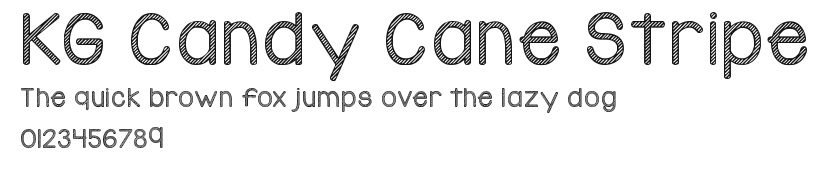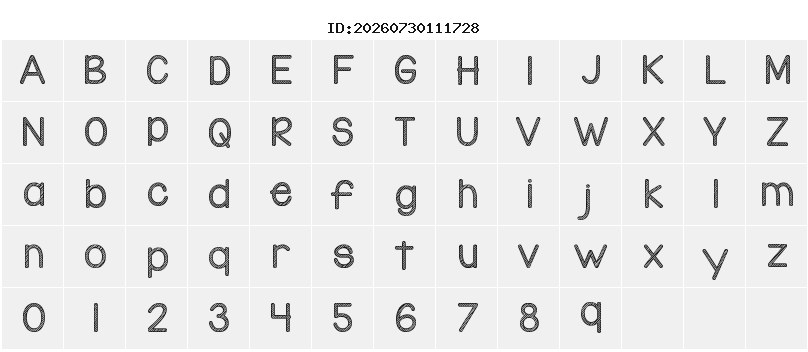
KG Candy Cane Stripe Preview
• Font Name: KG Candy Cane Stripe
• Font ID: KimberlyGeswein: KG Candy Cane Stripe: 2014
• Full Font Name: KG Candy Cane Stripe
• Designer: Kimberly Geswein
• Manufacturer: Kimberly Geswein
About KG Candy Cane Stripe.ttf
KG Candy Cane Stripe.ttf is a modern, elegant sans-serif font designed for ultimate readability and visual harmony. Perfect for branding, headlines, web design, and print materials.